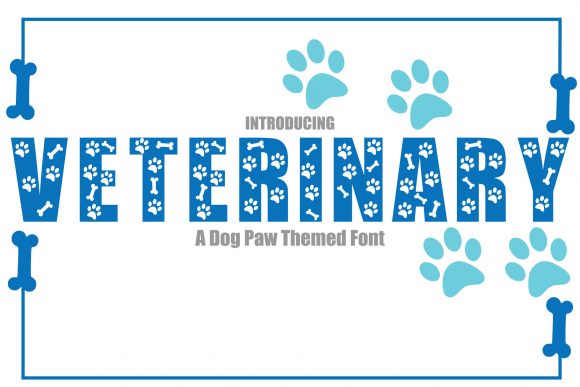
**Welcome to the Whimsical World of Veterinary Font: Where Boldness Meets Cuteness**
In the realm of display fonts, Veterinary Font stands tall as a masterpiece that embodies boldness and charm. A creation of the renowned artist KtwoP, Veterinary is a font that speaks volumes with its thick, bold letters and an adorable touch of cute paws. It's a font that invites you to unleash your creativity and add a dash of whimsy to your projects.
**Craft Your Unique Story with Veterinary Font**
Whether you're a seasoned crafter seeking to elevate your handmade creations, a digital designer looking to make a splash in the online world, or an educator crafting captivating presentations, Veterinary Font is your ultimate companion. Let your imagination soar as you explore the endless possibilities this font offers.
**Bring Warmth to Your Greeting Cards with Veterinary Font**
With Veterinary Font, crafting heartfelt greeting cards becomes a joyful experience. Its playful paws add a personal touch that's sure to warm the hearts of your loved ones. Convey heartfelt sentiments and well wishes with a font that speaks louder than words.
**The Ideal Font for Your Blooming Business**
For business owners seeking to make a statement, Veterinary Font is the perfect choice. Create logos and branding materials that exude professionalism and playfulness. Its bold presence commands attention, making your brand stand out from the crowd.
**Unlock Your Creativity with Veterinary Font Today**
Veterinary Font is more than just a font; it's a gateway to a world of boundless creativity. Its versatility and charm lend themselves to a myriad of applications, from crafting and digital design to presentations and greeting cards. As you embark on your creative journey with Veterinary Font, prepare to be amazed by the captivating projects you'll bring to life.
**Step into the World of Veterinary Font and Let Your Imagination Take Center Stage!**